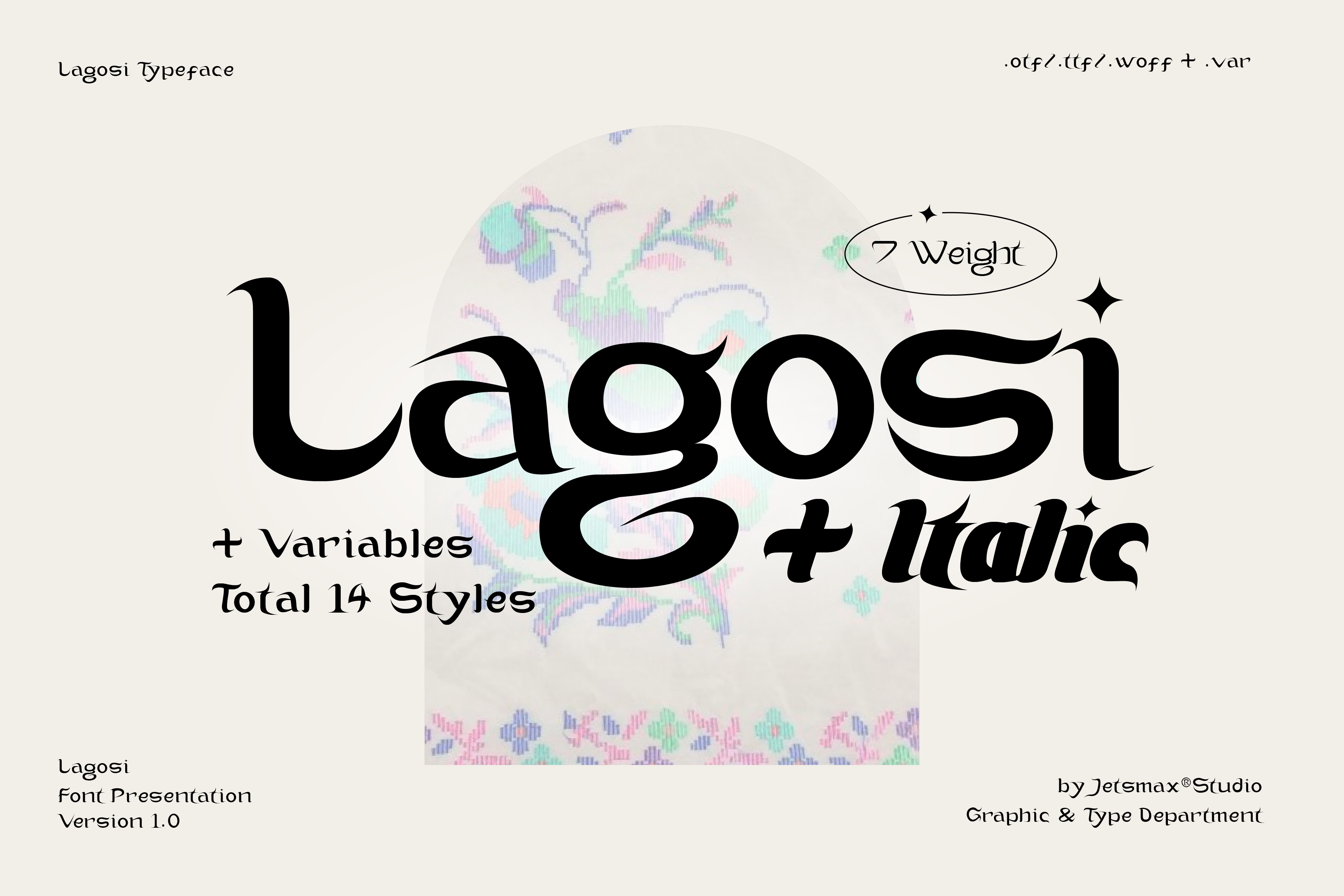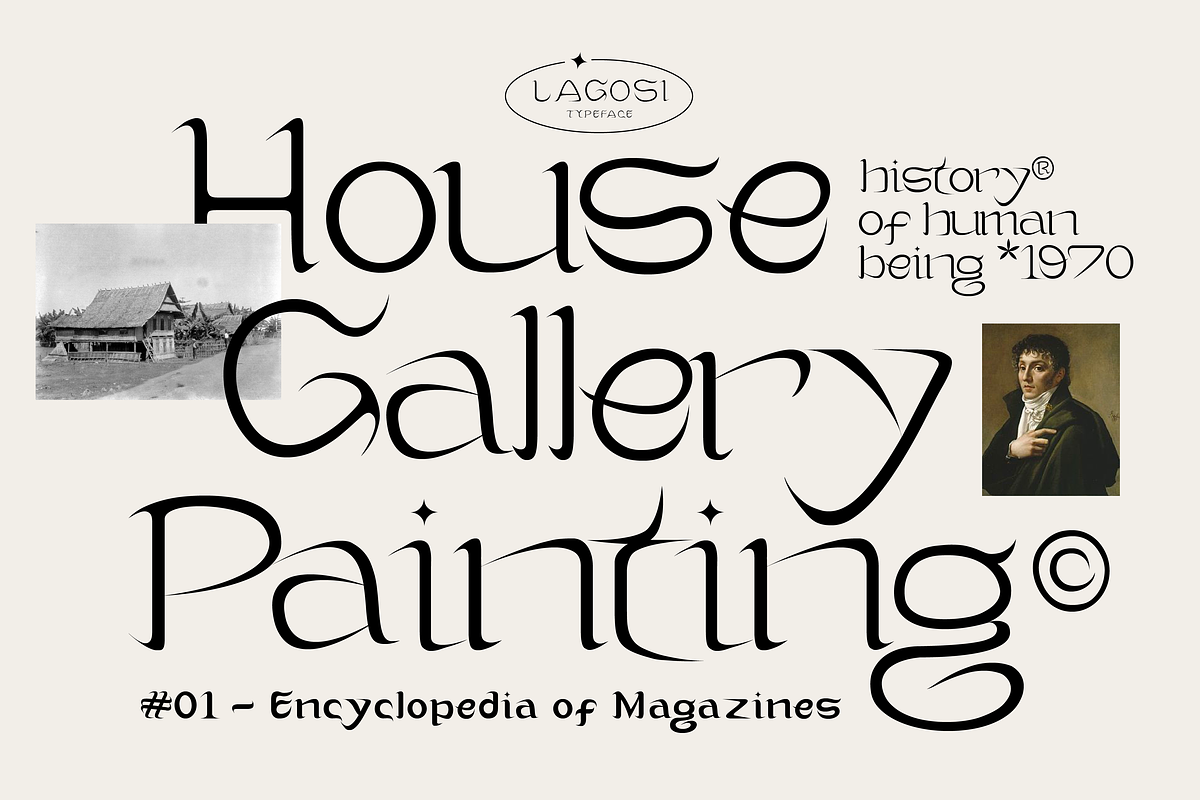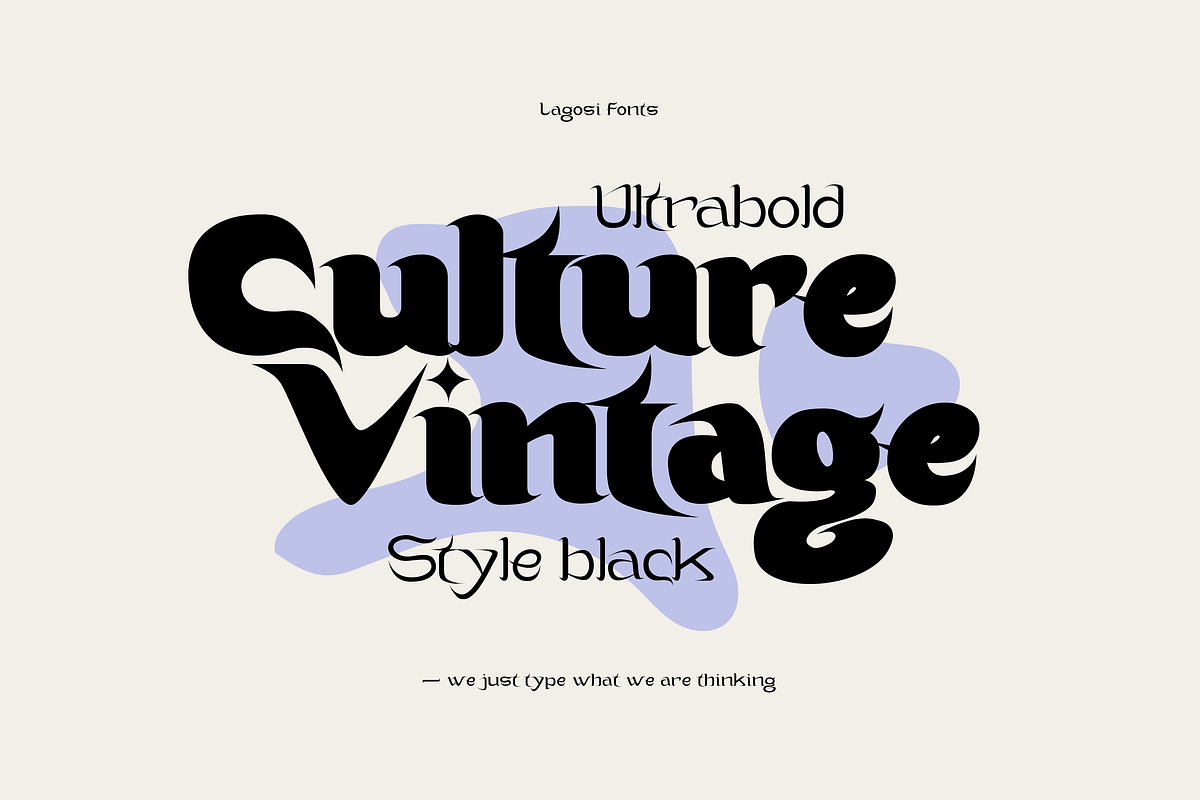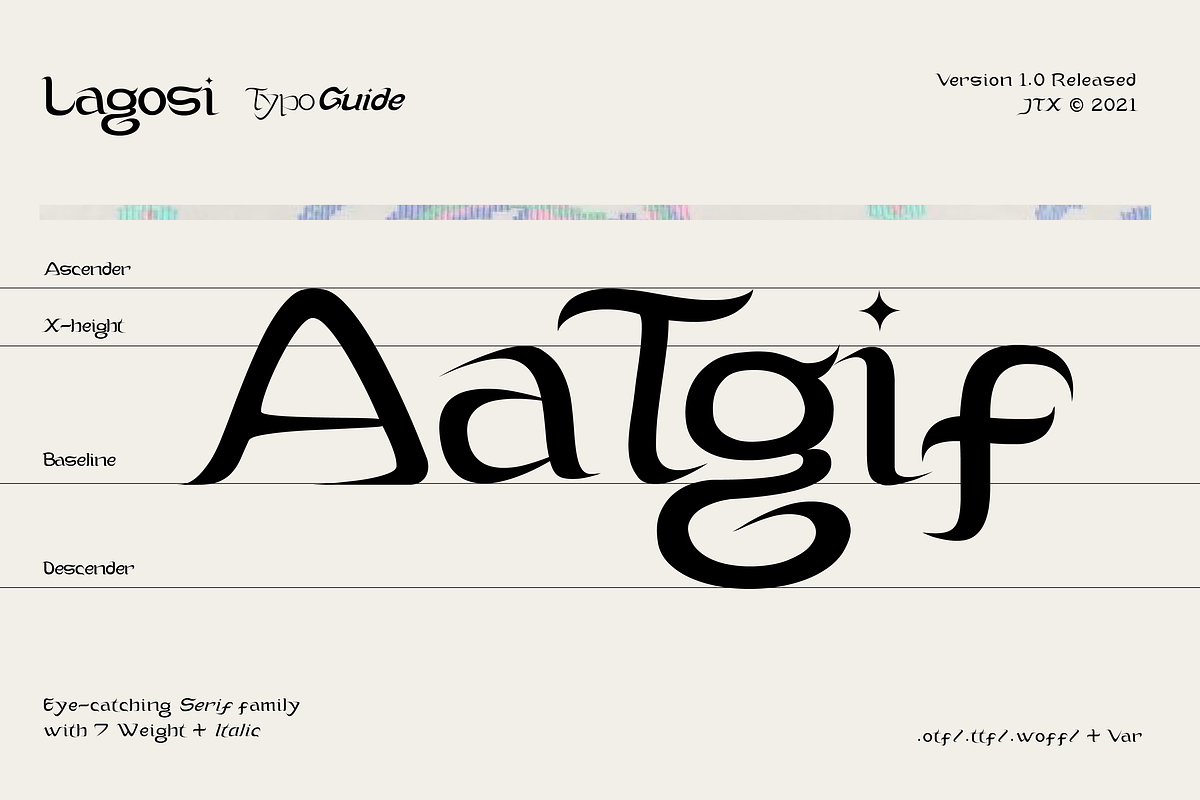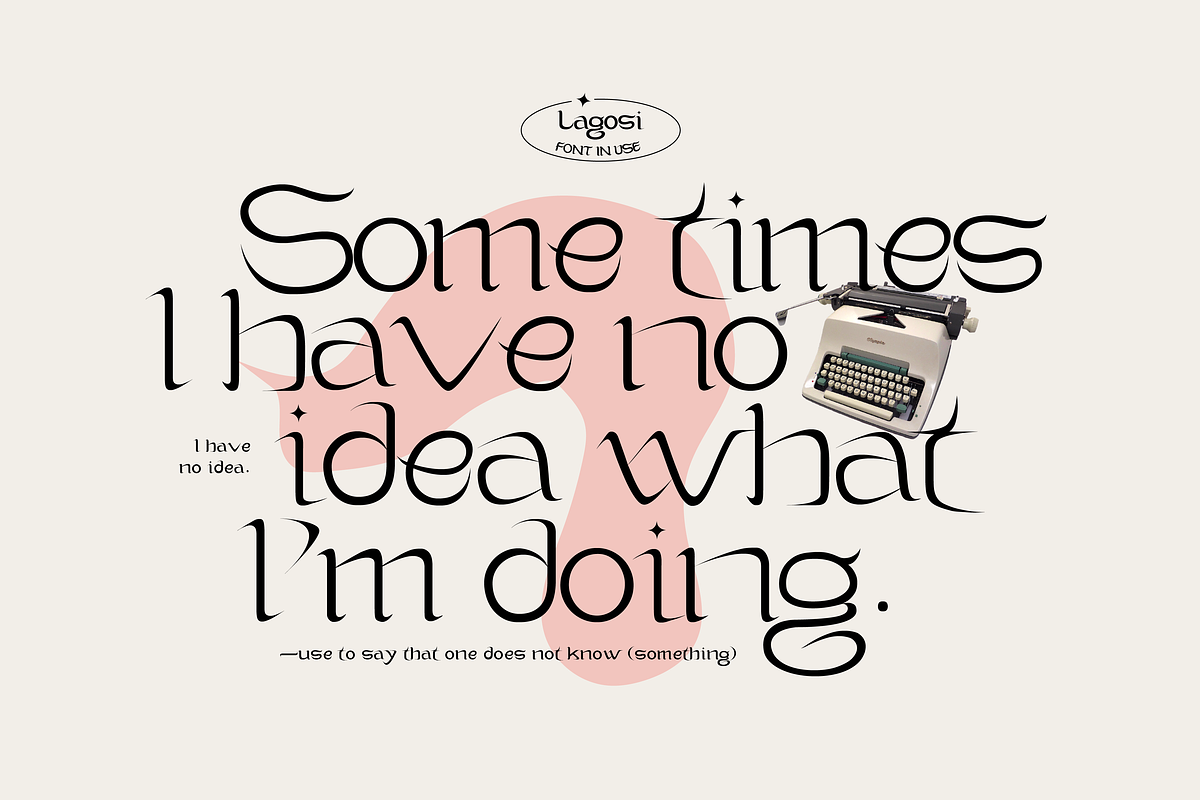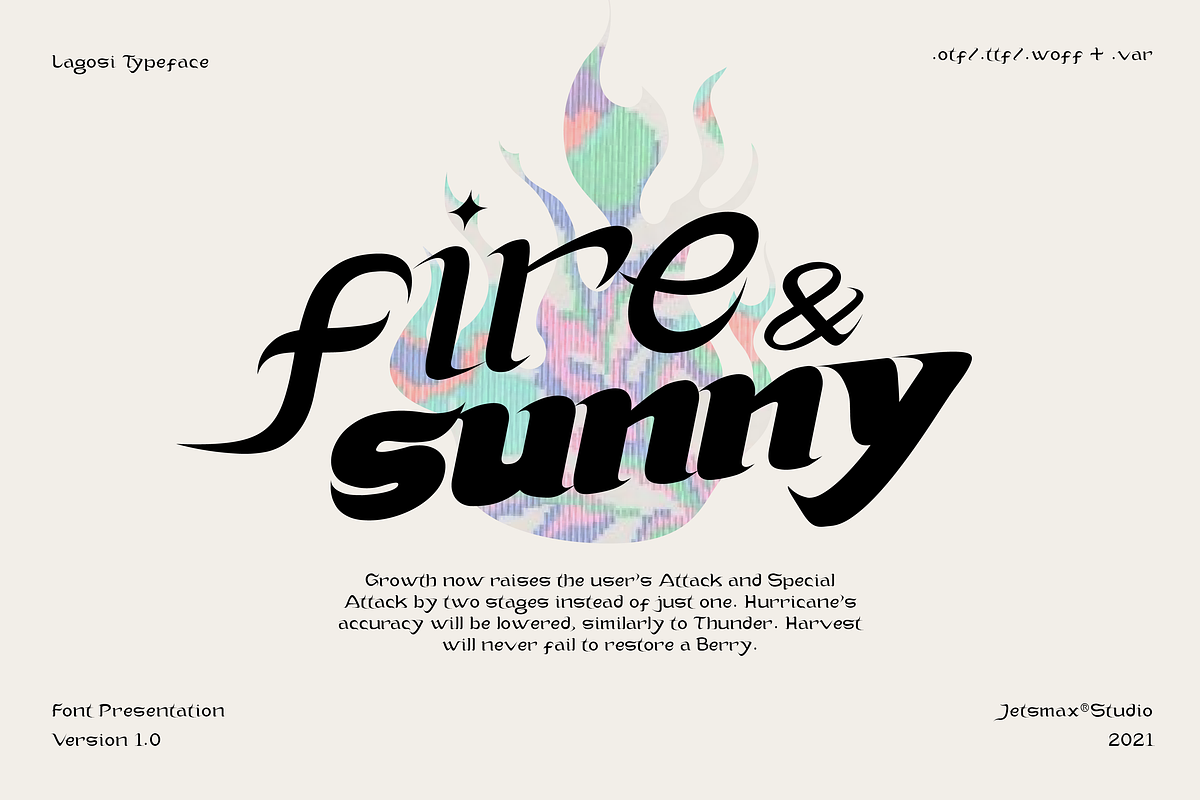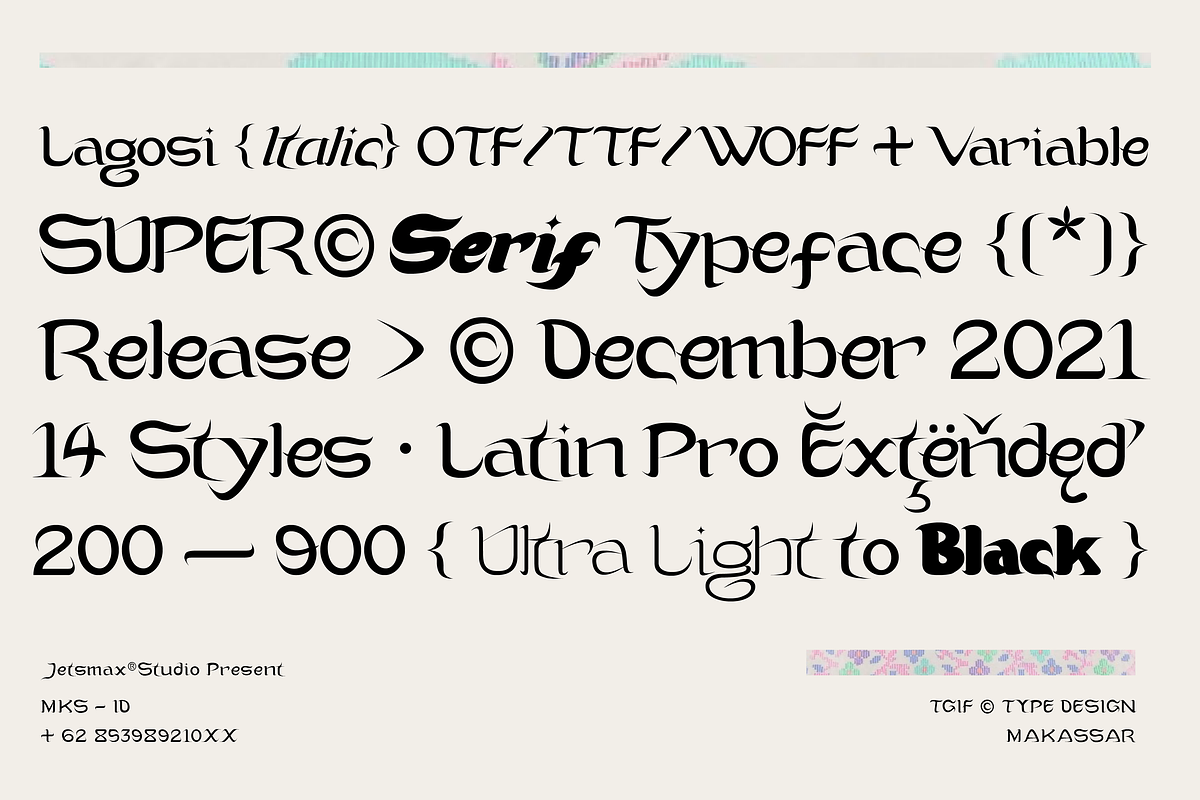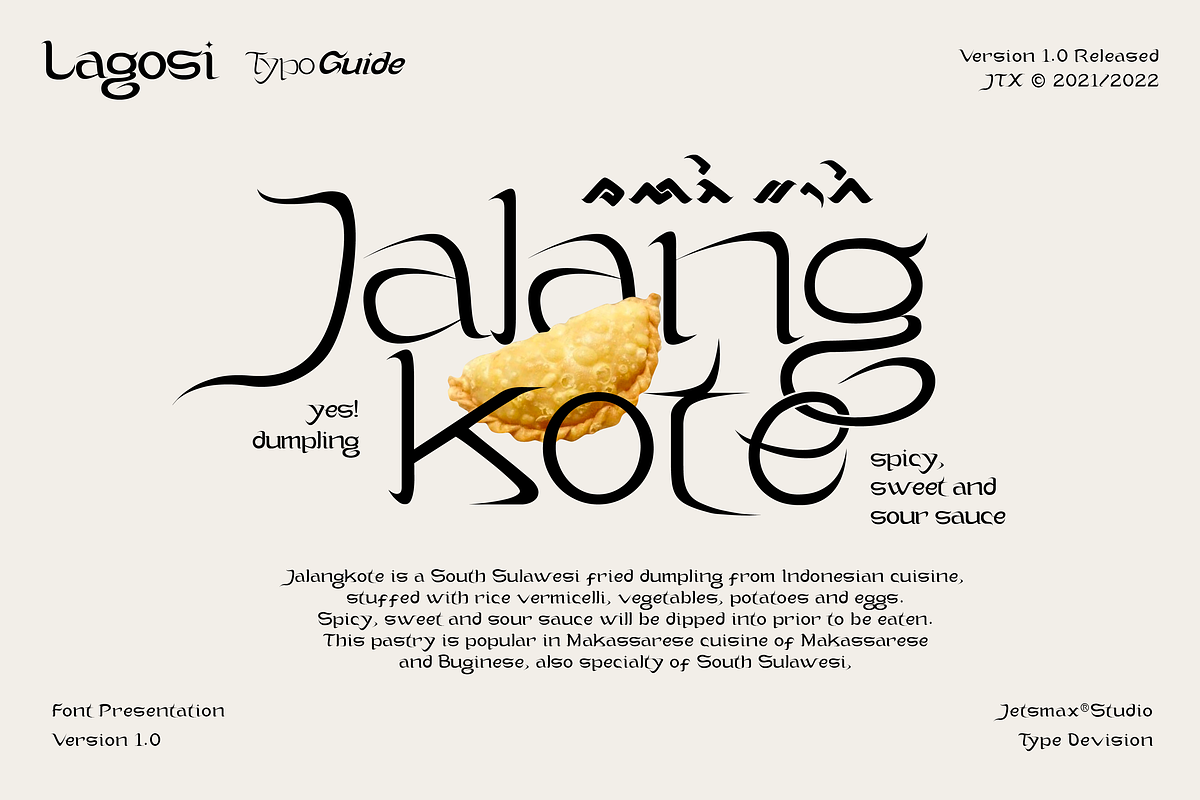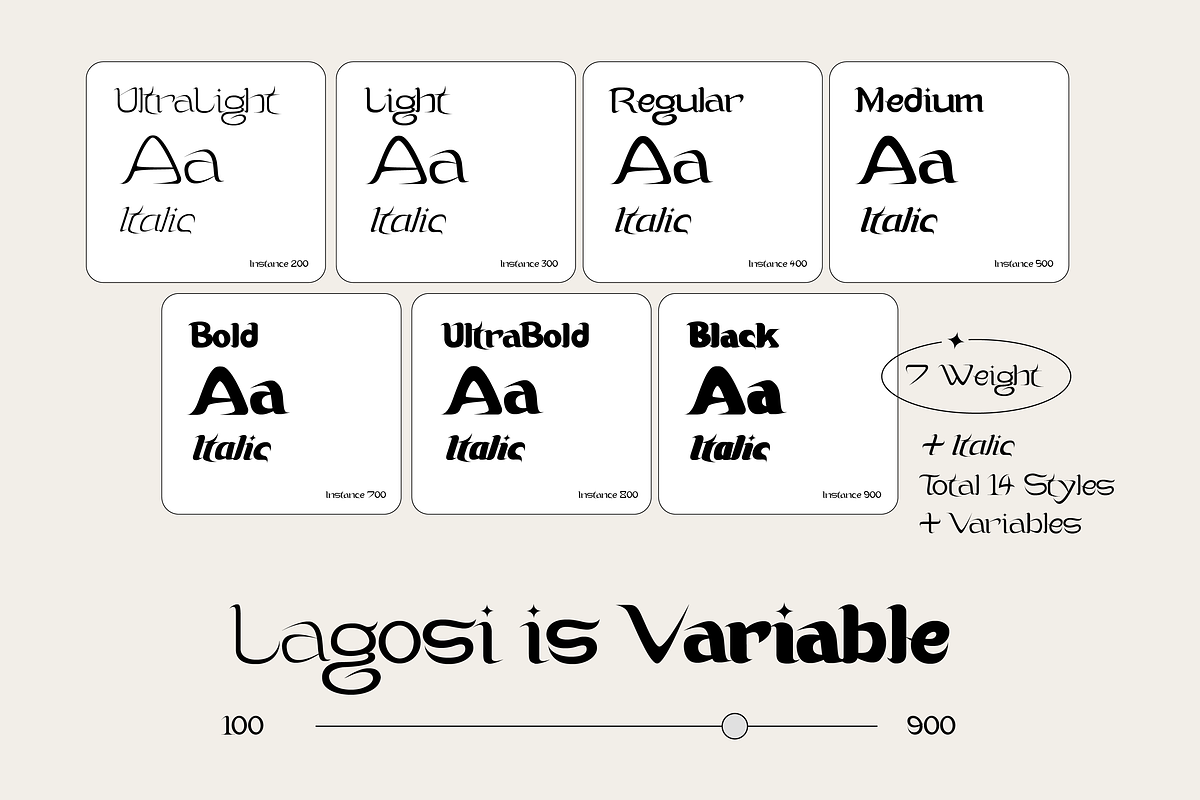
Lagosi Typeface
Lagosi is a pointed serif typeface inspired by the features on the lagosi fabric found in wajo. They range in weight from light cuts that are bold and elegant to black and strong. Packed with more sets of Italic gestures and other custom bindings, this typeface is perfect for adding sparkle and elegance to your designs.
- Ligature & Unique